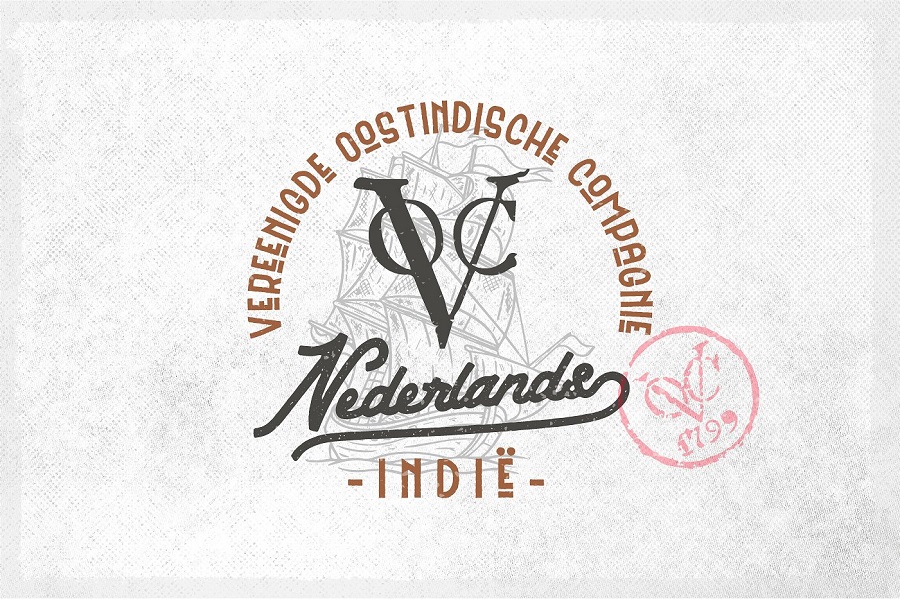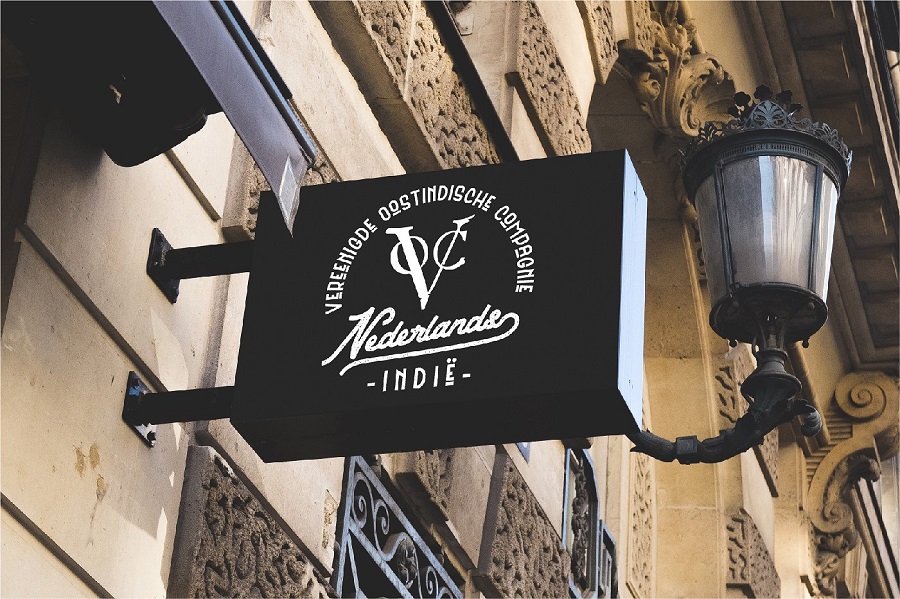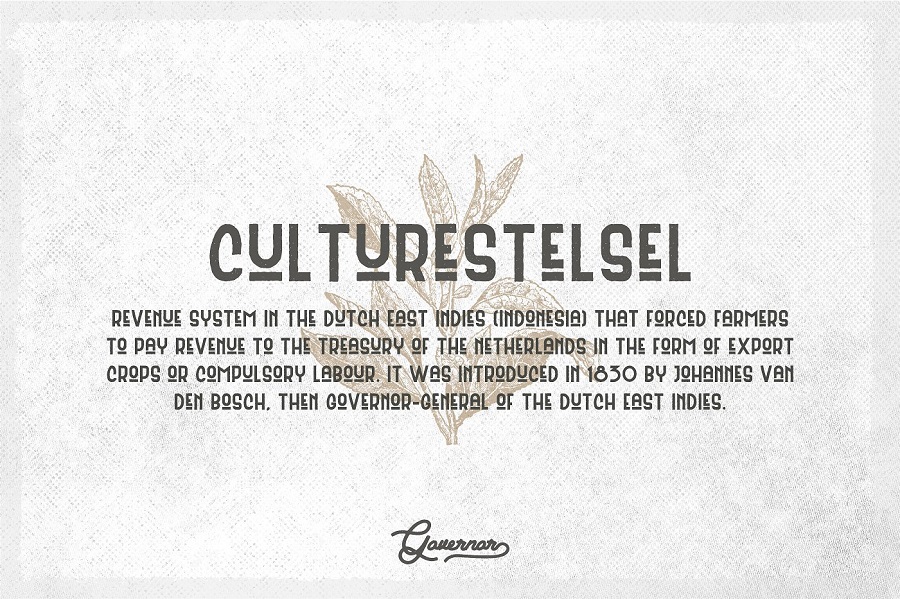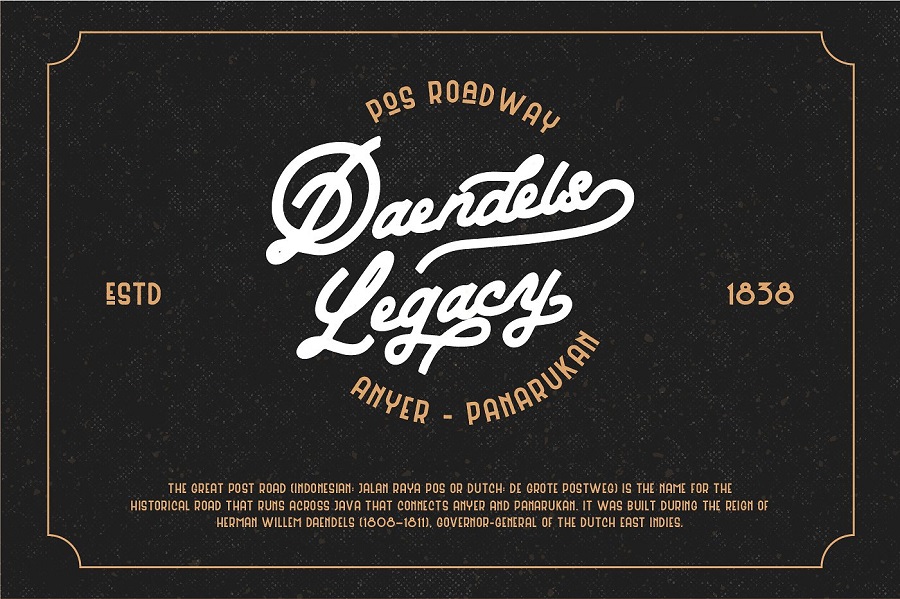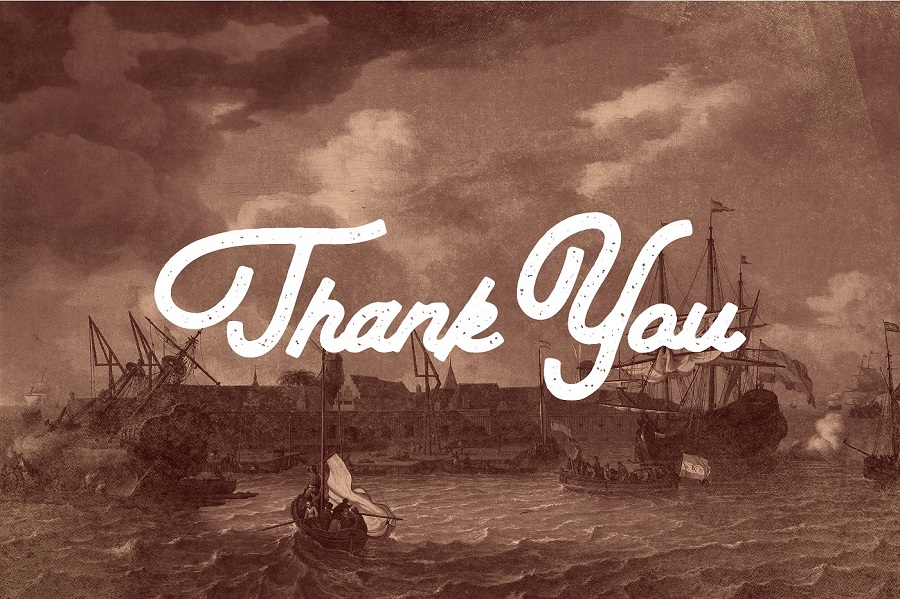
Batavia Free Font Duo
Batavia Free Font Duo is 2 complementary font that takes inspiration for the atmosphere of Batavia. Batavia itself is a city in the Dutch East Indies which is now renamed Jakarta. This font includes Script and Sans which perfectly pairing each other to create a vintage mood. It can be used for different purposes: lettering and logotype, labels, t-shirts, product packaging, invitations, advertising and any key text in design.